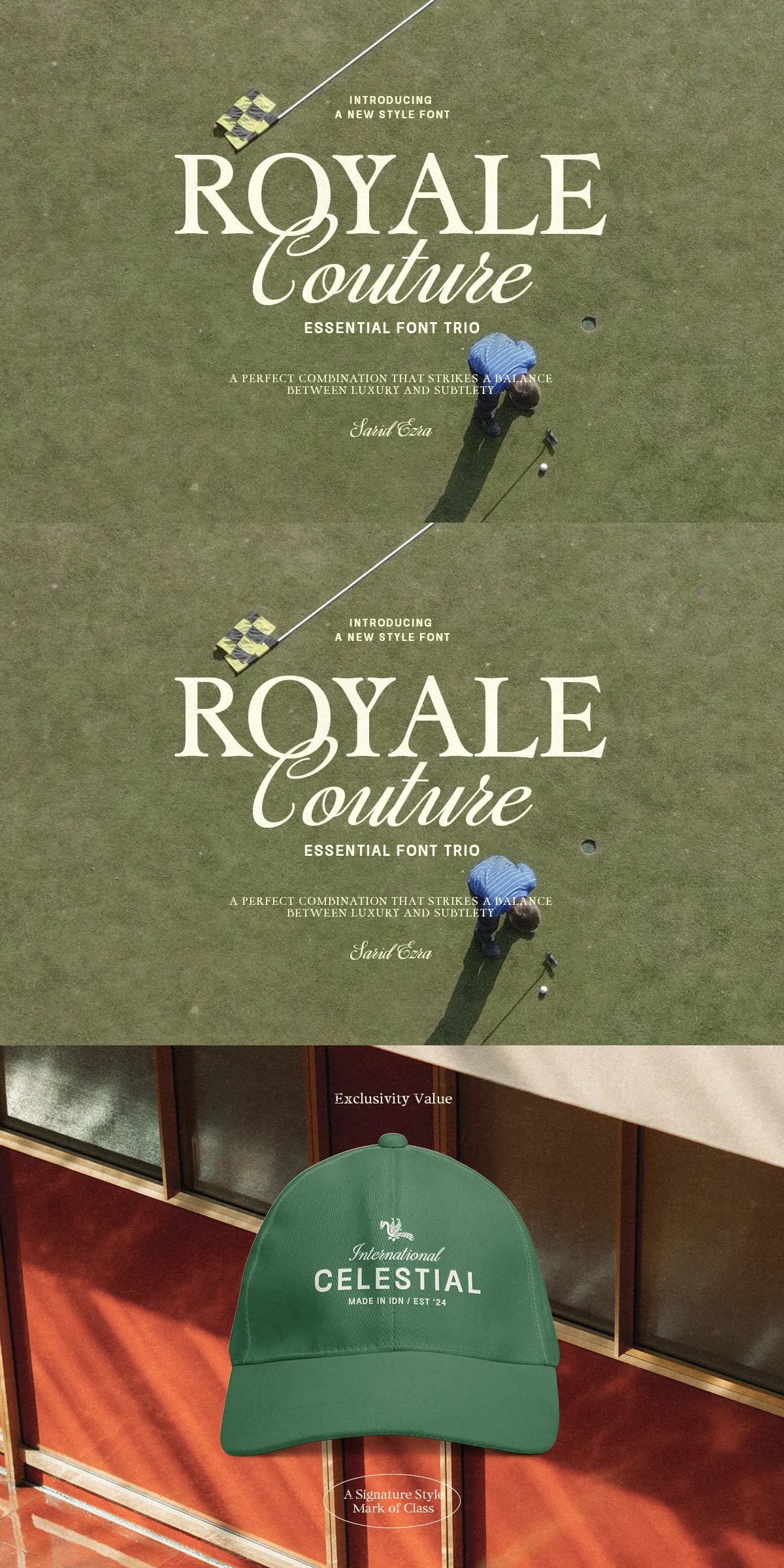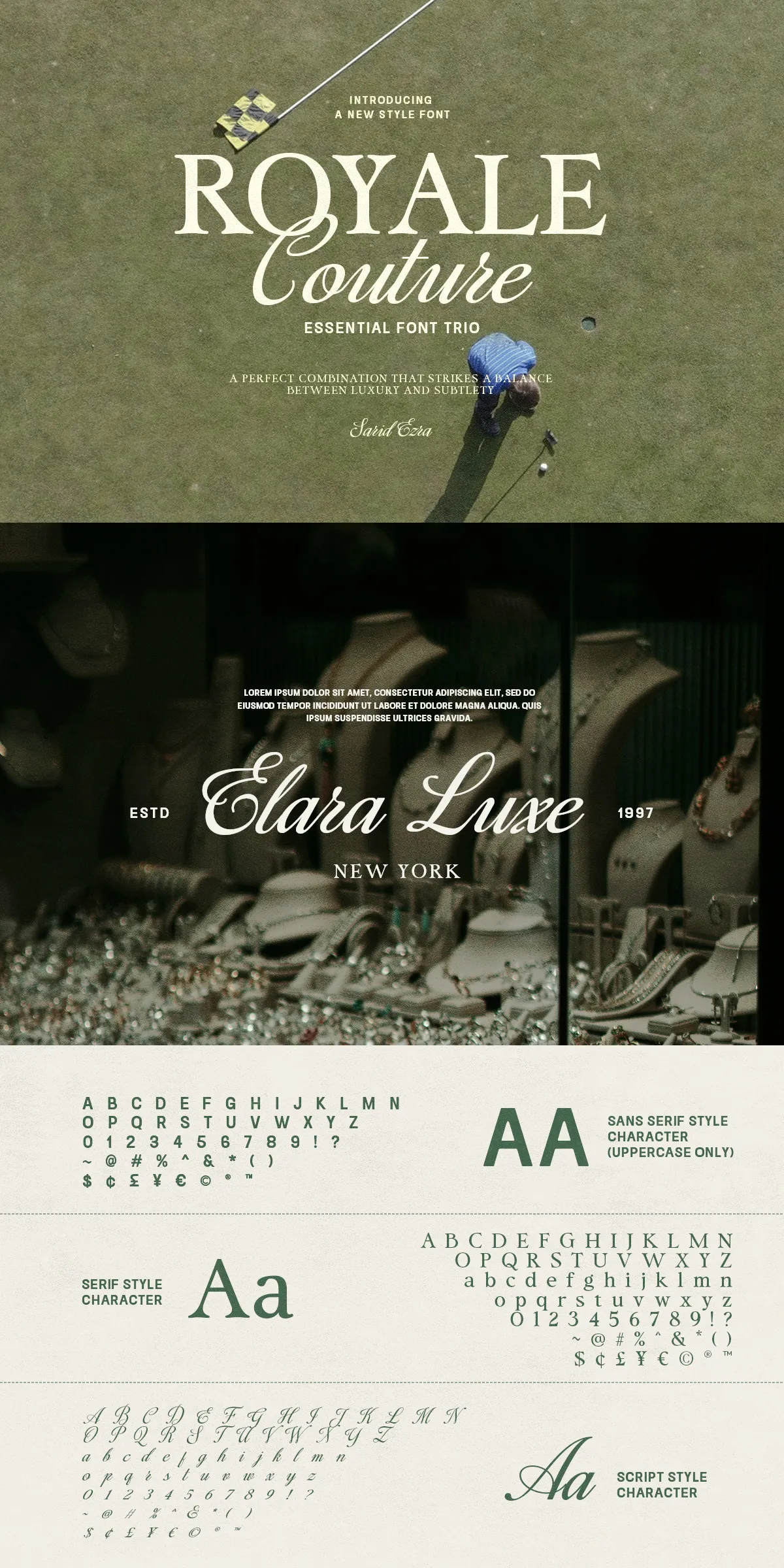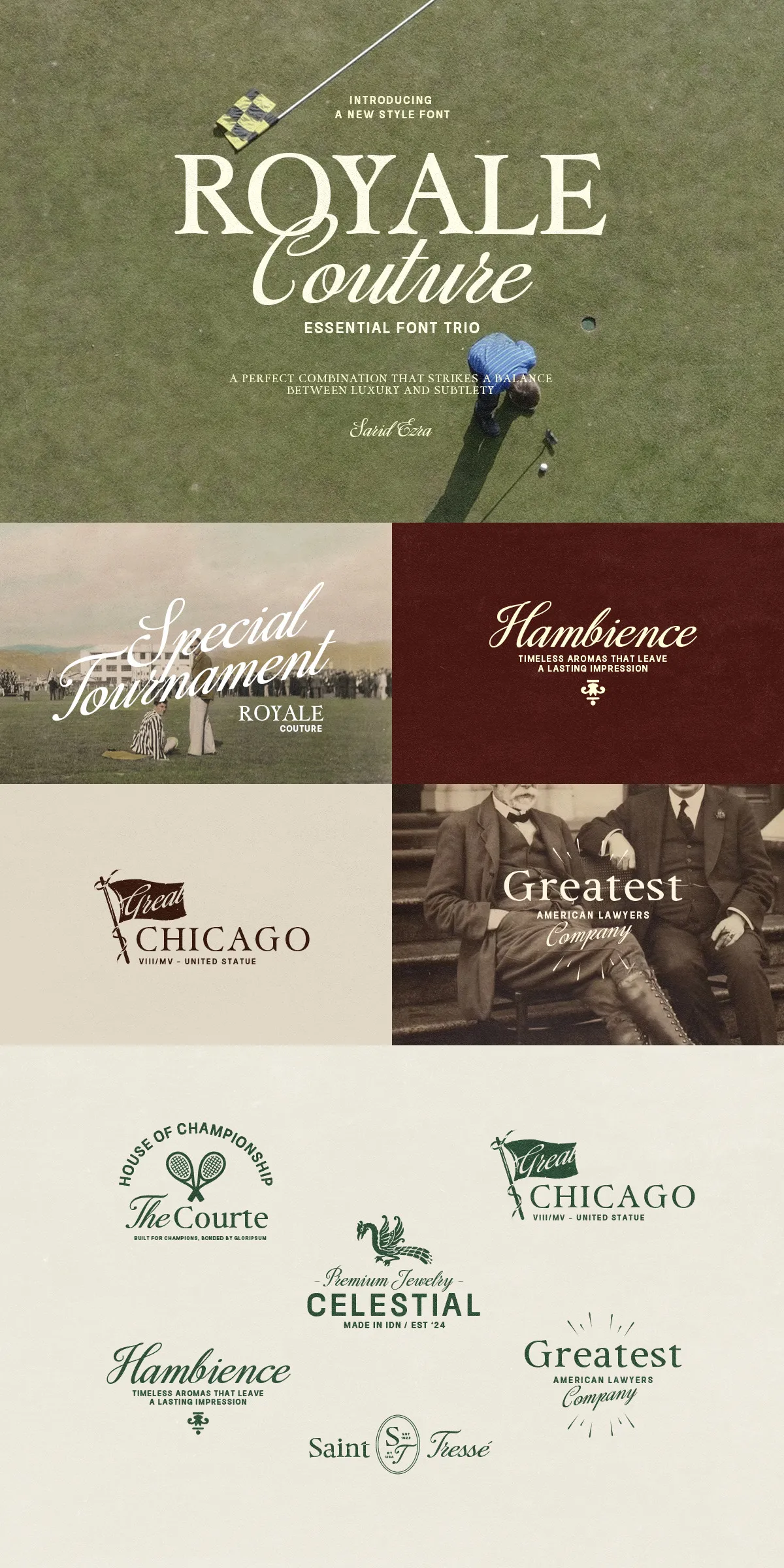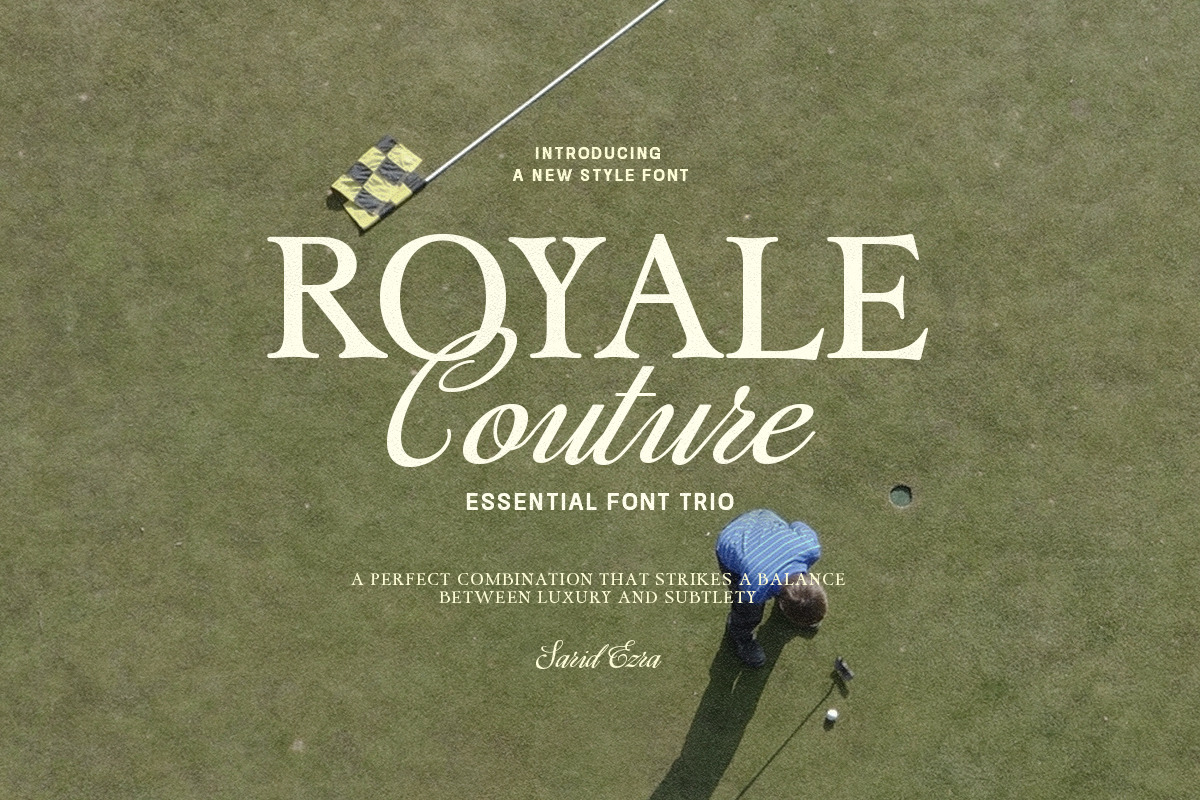
Royale Couture – Essential Font Trio
Step into the world of refined typography with Royale Couture — a meticulously crafted font trio that blends bold serif dominance, crisp classic sans precision, and flowing script grace. This isn’t just a collection of typefaces — it’s a design revolution in three parts, engineered to elevate your projects with luxury, balance, and seamless harmony. Whether you’re defining a brand identity, curating wedding invitations, or crafting powerful quotes, Royale Couture gives you the tools to command attention with sophistication and style.
Why Royale Couture Stands Apart in a Crowd
While most font sets require hours of trial-and-error pairing, Royale Couture was designed from the ground up to work together — naturally, intuitively, beautifully. Each font in the trio shares a cohesive design language, yet maintains its own distinct character. You get the dramatic impact of a bold serif, the clean clarity of a neutral sans, and the romantic flair of a refined script — all unified under a single artistic vision.
• Bold Serif: Designed for authority and gravitas. Ideal for headlines, luxury logos, and editorial titles.
• Classic Sans: The silent powerhouse of modern minimalism. Perfect for body text, UI design, and clean layouts.
• Stylish Script: Captures the soul of elegance. The ideal companion for quotes, invitations, and signature elements.
Seamless Integration, Zero Guesswork
No more spending time searching for the perfect matching font. Royale Couture is built for instant collaboration. Use the serif for impact, the sans for readability, and the script to add emotional resonance — all in one cohesive ecosystem. The result? A brand or design that looks polished, professional, and intentional from the very first word.
Engineered for Real-World Design Power
Royale Couture isn’t just about looks — it’s built for performance. With full multilingual support, you can reach global audiences with confidence.
What’s Included in the Trio?
• Complete Multilingual Coverage: Supports Western and Central European languages, including French, German, Spanish, Italian, and more. Plus, full Latin script extensions for broader international use.
• Numbers & Symbols: Includes tabular and proportional figures, fractions, ordinals, currency signs, mathematical operators, and punctuation for full typographic control.
• Full Font Variants: Each font features multiple weights (regular, medium, bold, light) and italic styles for maximum flexibility in design hierarchy.
• OpenType Features: Access to ligatures, stylistic alternates, and contextual forms for advanced typographic refinement.
Where to Use Royale Couture: The Creative Playground
This font trio is more than a toolkit — it’s a passport to endless creative possibilities.
• Branding & Logotype Design: Create a luxury identity that communicates confidence, heritage, and attention to detail.
• Wedding Invitations & Stationery: Craft timeless, elegant save-the-dates and invitations with perfectly paired serif, script, and sans fonts.
• Editorial & Magazine Design: Build striking covers, pull quotes, and mastheads with layered typographic depth.
• Quote Graphics & Social Media Content: Use the script for emotional phrases, the serif for bold statements, and the sans for clean context.
• Product Labels & Packaging: Add sophistication to high-end packaging with a typographic trio that speaks luxury.
Pro Tips for Maximum Design Impact
To unlock the full potential of Royale Couture:
• Use the bold serif for headlines, classic sans for body, and stylized script for emotional quotes — and watch how the trio complements each other effortlessly.
Final Statement: Elevate Your Vision with Royale Couture
Design isn’t about choosing fonts — it’s about choosing voice. With Royale Couture, you’re not just selecting typefaces. You’re choosing a legacy of elegance, balance, and timeless power.